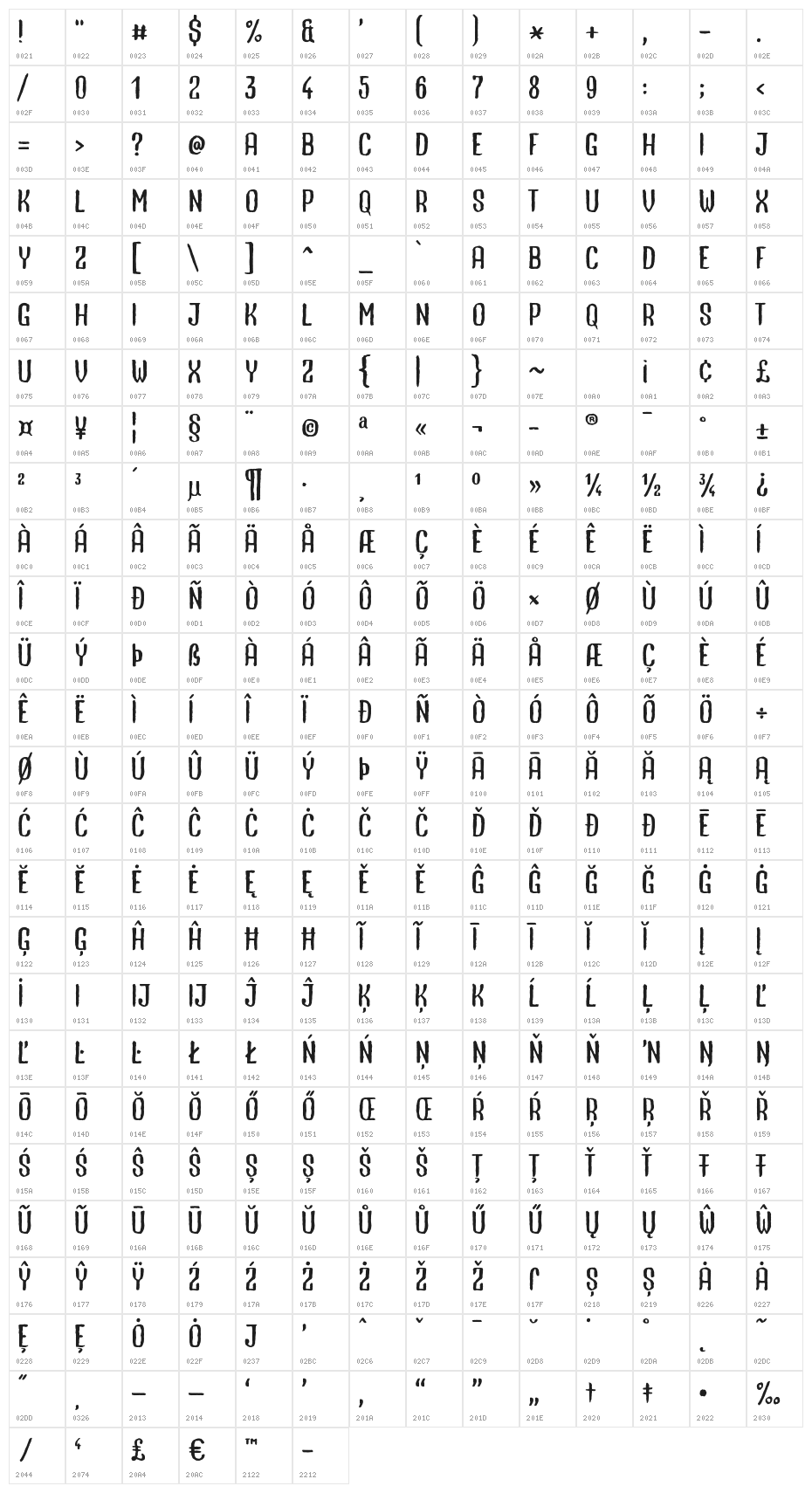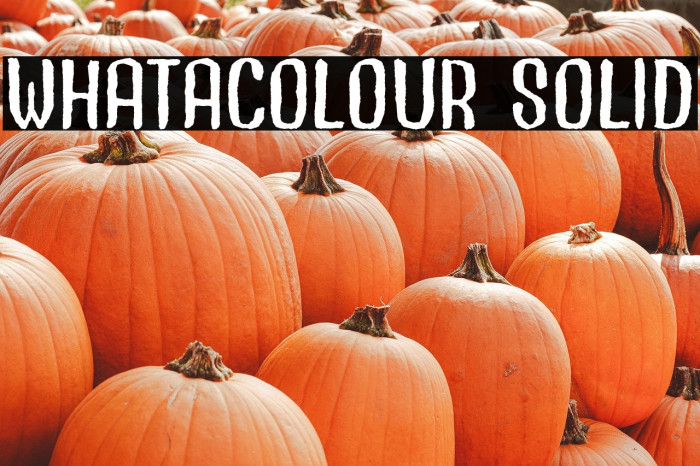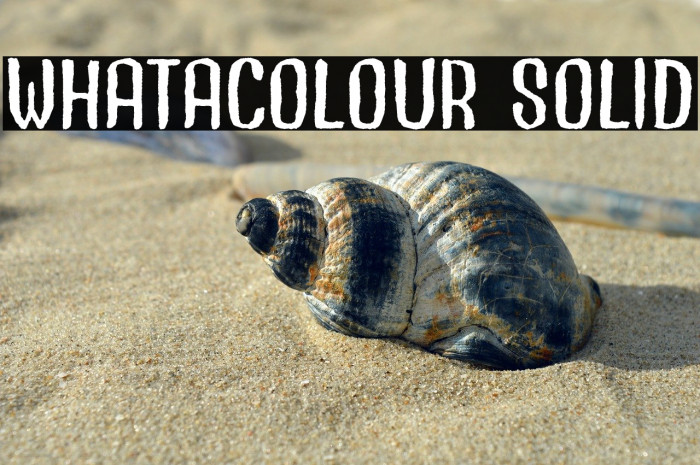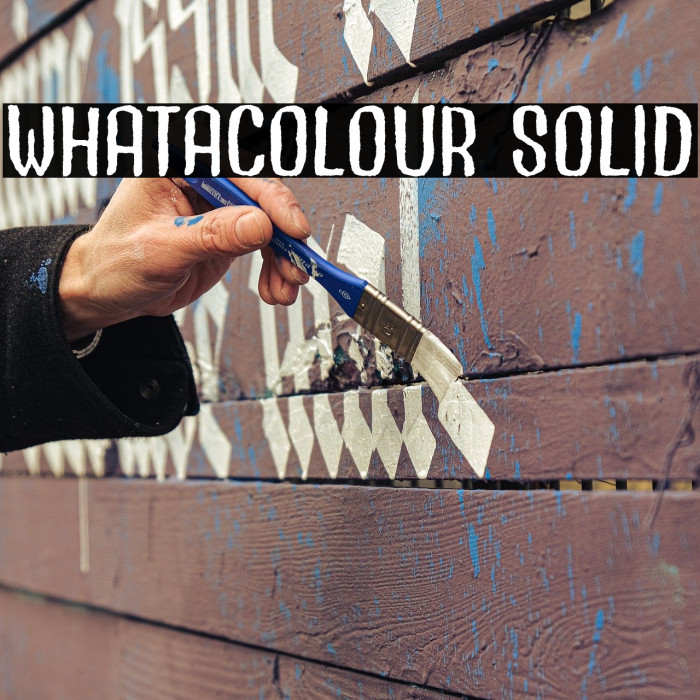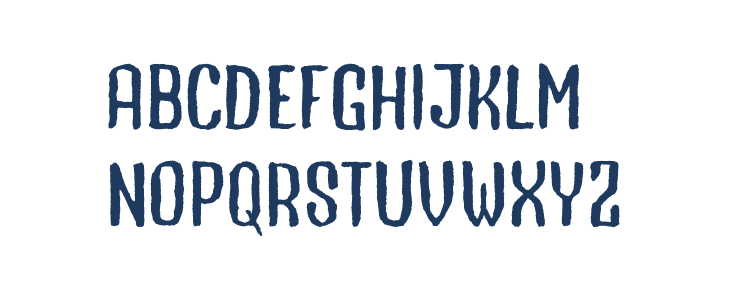
Whatacolour Solid Font
Whatacolour Solid Description
This font features a bold, hand-drawn style with a rustic and organic feel. The characters have a slightly uneven texture, giving them a natural and authentic appearance. The uppercase letters are tall and narrow, while the lowercase letters maintain a consistent height, creating a harmonious balance. The numbers and special characters follow the same stylistic approach, ensuring uniformity across all glyphs. The font's unique charm makes it suitable for projects that require a personal touch or a vintage aesthetic.